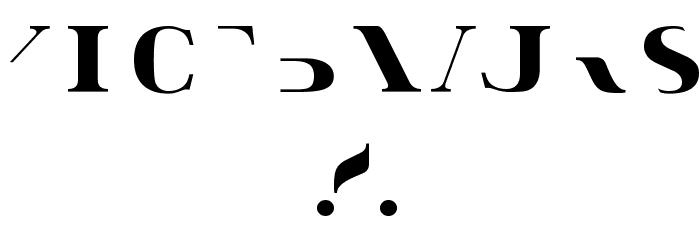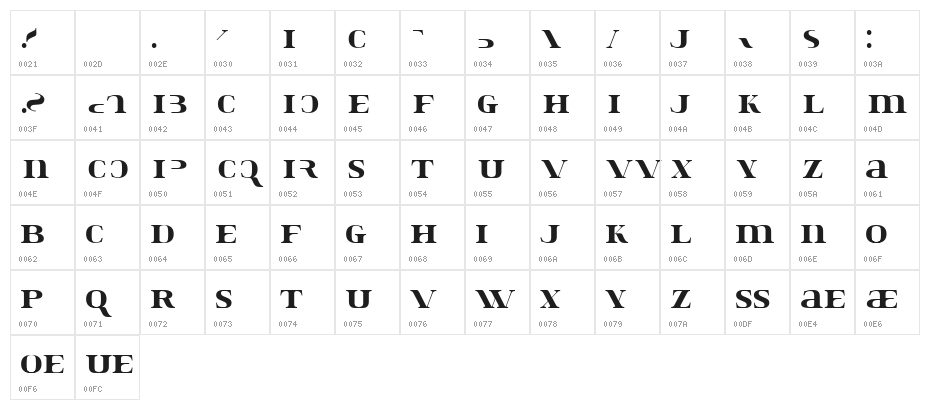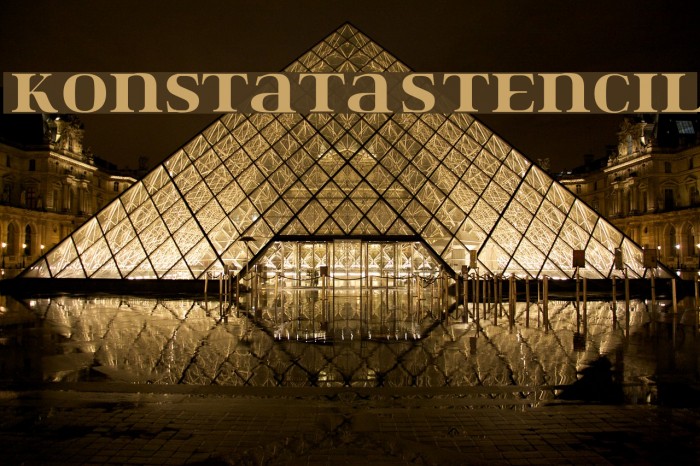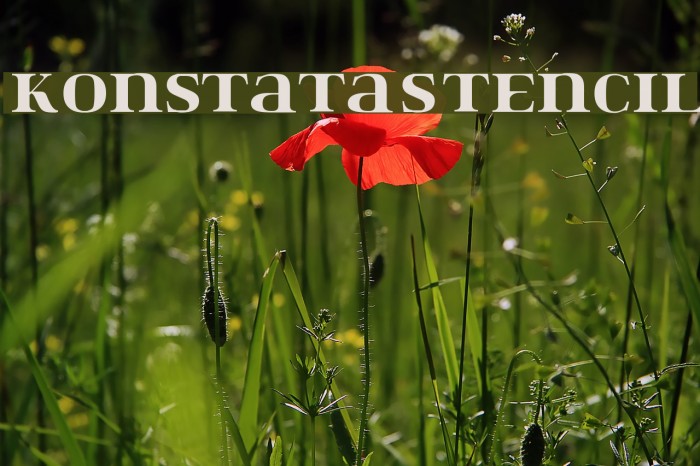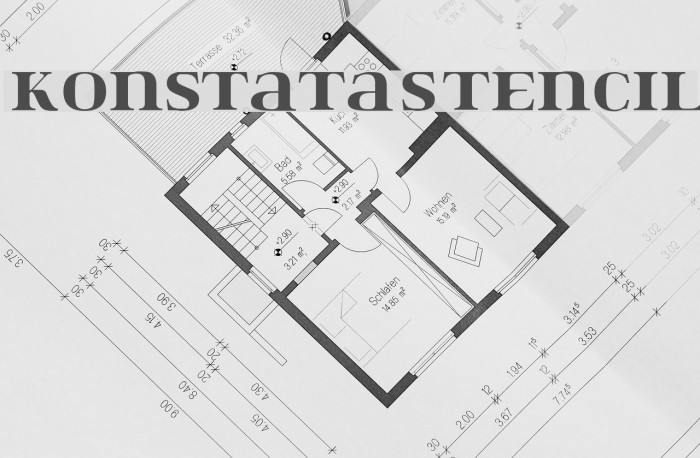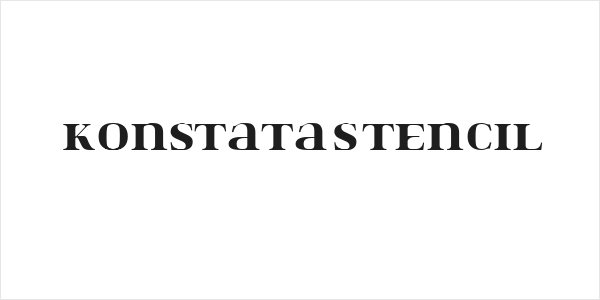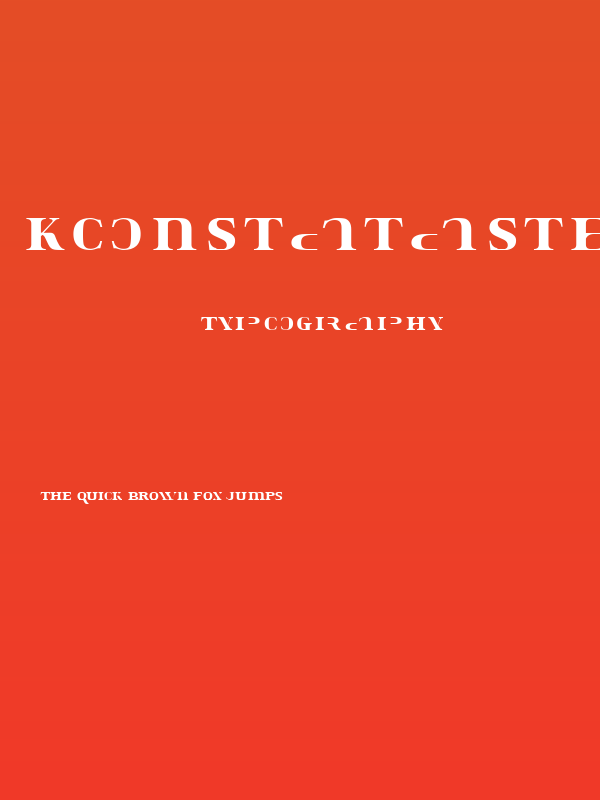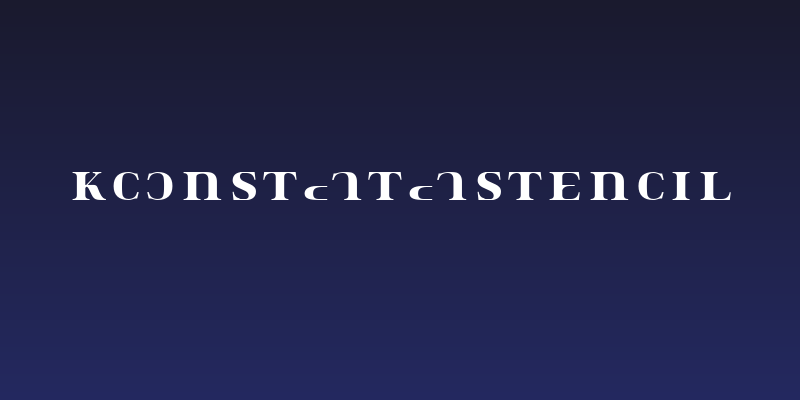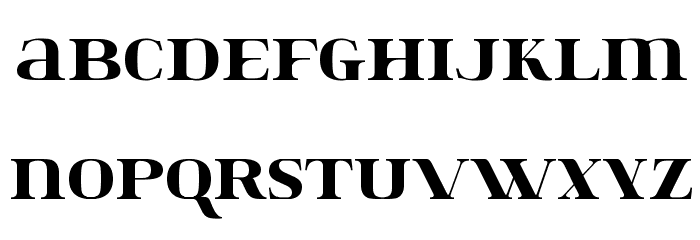
Konstata-Stencil Font
Konstata-Stencil Description
This font features a distinctive stencil design with bold, geometric shapes and sharp angles. The characters are crafted with precision, showcasing a modern and industrial aesthetic. The uppercase letters are particularly striking, with their strong presence and unique cut-out sections that add a sense of depth and dimension. The lowercase letters maintain the same boldness, ensuring consistency throughout the typeface. The numerals and special characters are equally well-designed, making this font versatile for various applications. Its clean lines and contemporary style make it suitable for projects that require a modern and edgy look.
| Proposed Projects | Ideal for branding, posters, packaging, and signage where a modern, edgy look is desired. |